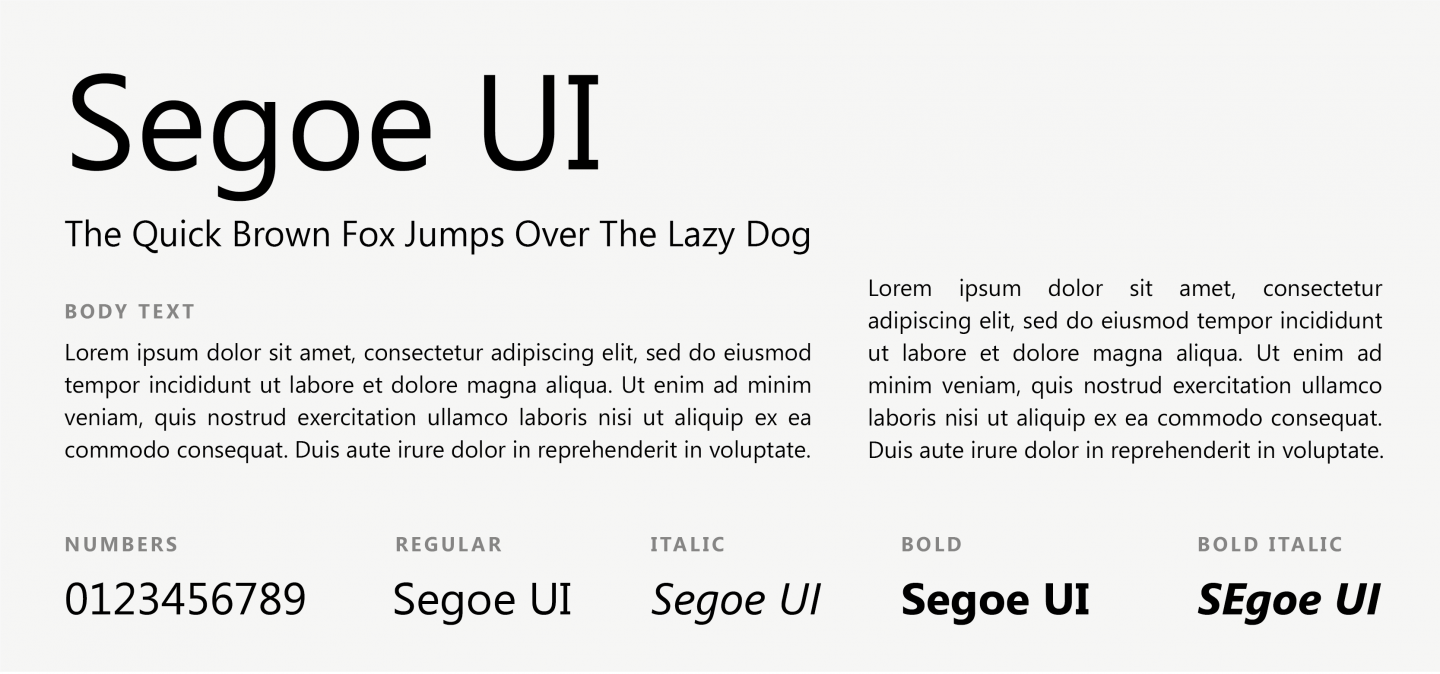
What Fonts Are Web Safe
What Fonts Are Web Safe. Arial black is another related font in the arial family. Google, facebook, and amazon are just some of the popular websites that use arial.
If you use calibri on your webpage, mac users won’t see it; 21 stunning web safe fonts. Additionally, this versatile font can be used for ui interface.
The Fonts That Are Most Safe To Use Are:
Arial narrow web safe font. In 2022, there are only six “web safe” fonts (arial, courier new, georgia, times new roman, trebuchet ms, and verdana). If the first font does not work, the.
Now That We Have An Insight Into The Fonts, Below Are 5 Popular Web Safe Fonts To Add To Your Website:
The following fonts are the best web safe fonts for html and css: Arial black is another related font in the arial family. But if you use georgia, you can rest assured that users of both systems will see the it.
According To Fontreach, Arial Is The #1 Font Used On The Web, With Over 604,000 Websites Currently Using It.
It's a very bold version more. The characters are clean, uniform, and easy on the eyes. Letters have a somewhat square quality, and the letters have less contrast in strokes when compared to other styles.
Most Of These Effects Happen Subconsciously, So, While Your Viewer May Not.
For a font to be accessible, it must also be legible to people with vision impairments and reading disabilities. Also known as “system fonts” or “browser fonts,” web safe fonts are the fonts installed on all devices and browsers. Fonts in this class include: